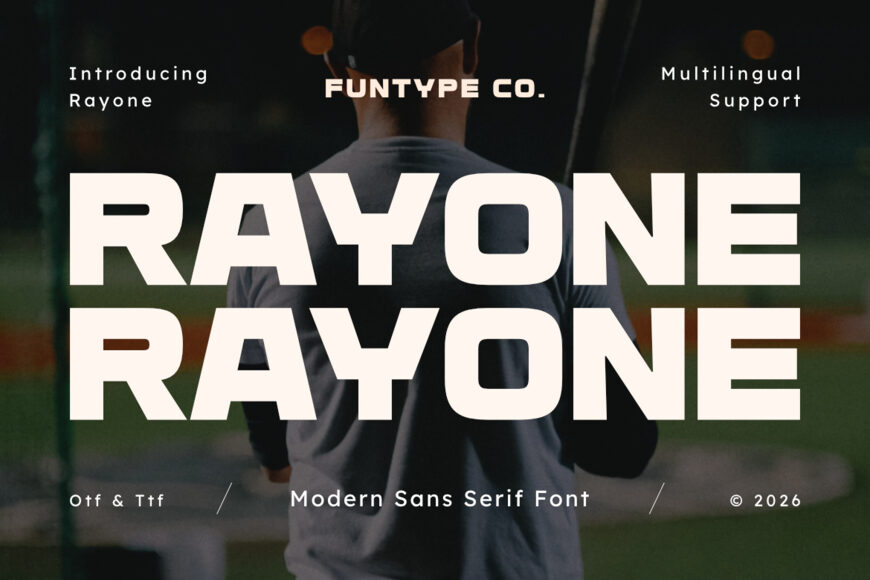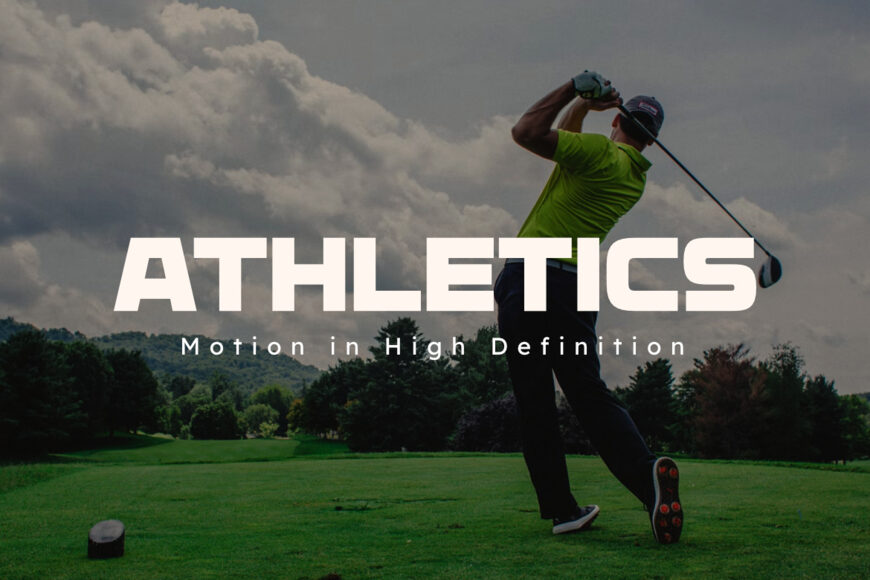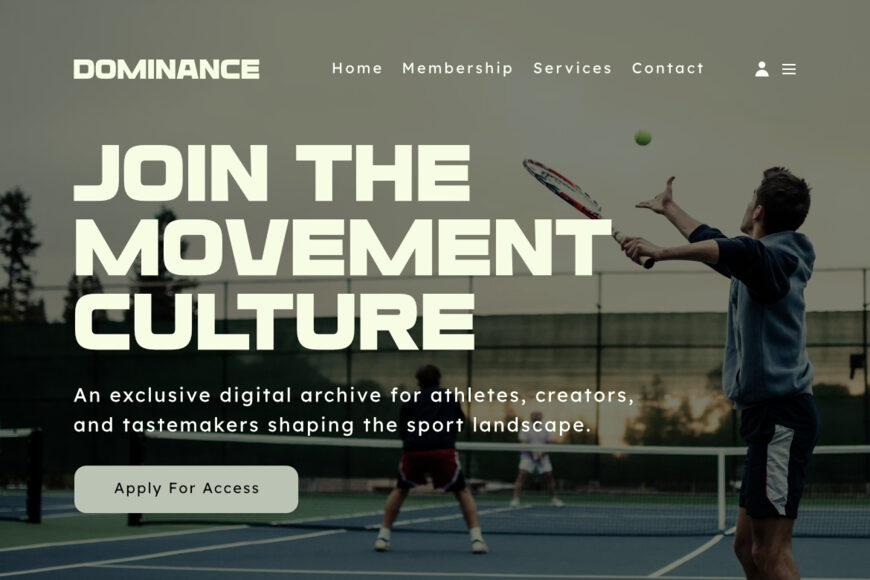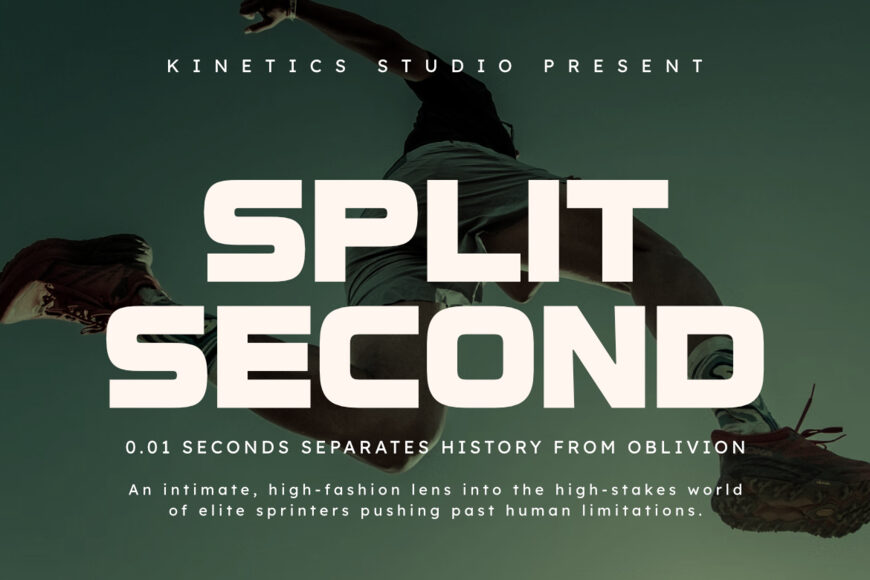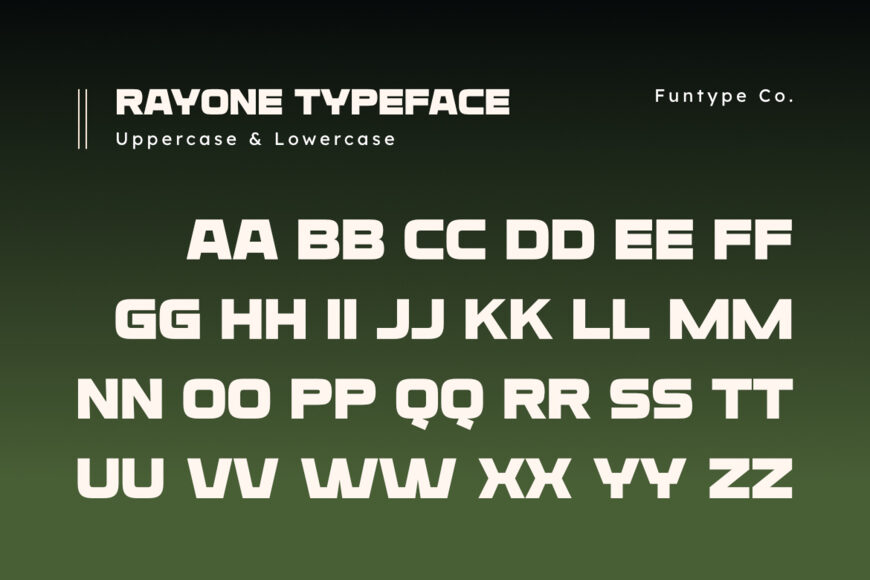
Rayone is a high-impact, bold, and modern sans serif display font, engineered to deliver a solid athletic presence, robust geometric block forms, and a dynamic display aesthetic to modern visual layouts.
Built with heavy letterforms and subtle angular inner cutouts, Rayone brings an authoritative sports broadcast identity, baseball league graphics, high-energy tournament promotion, and prominent digital media presence designed to capture immediate visual attention.